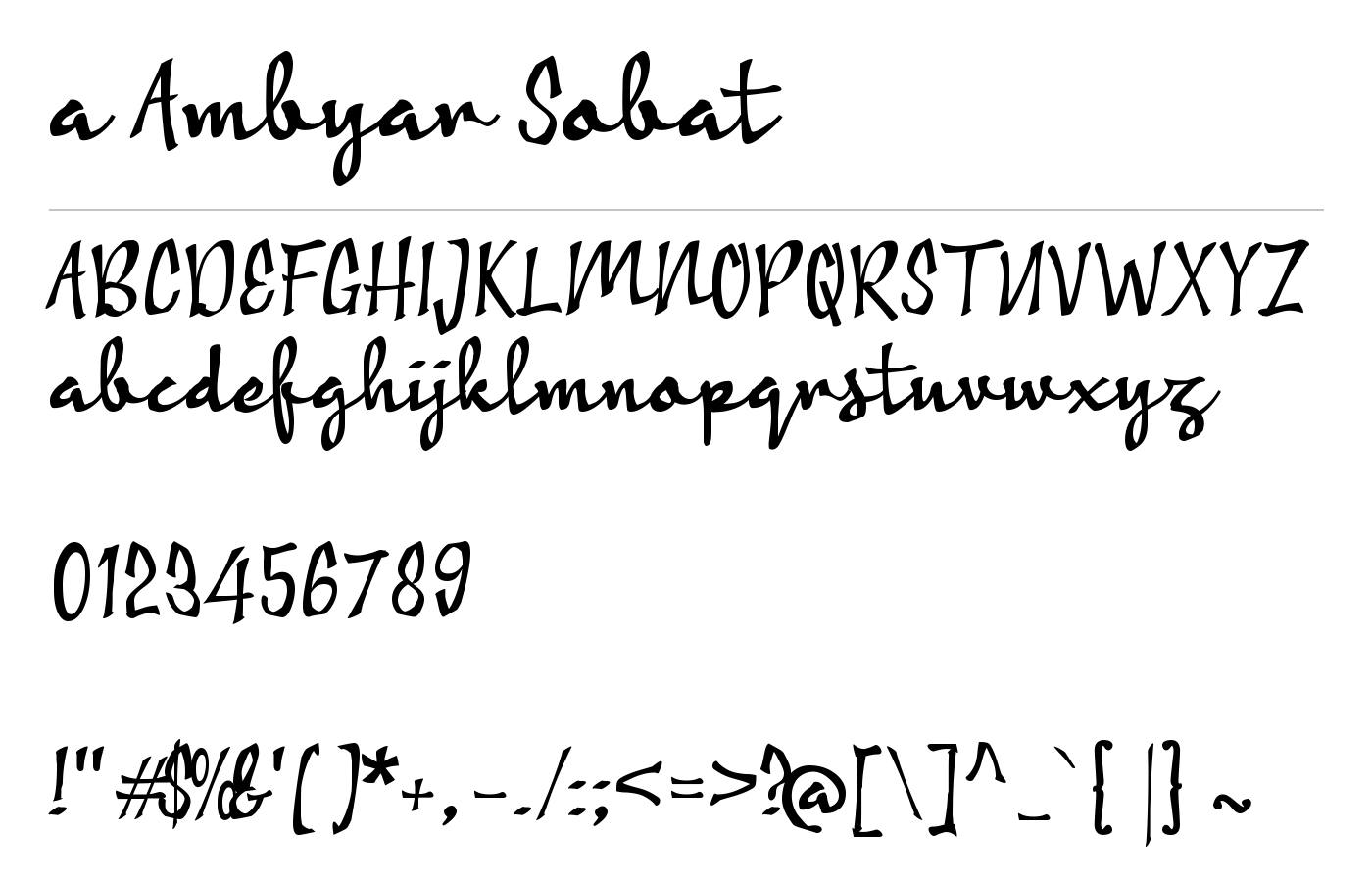
Ambyar Sobat is a lively handwritten script font with a casual, brush-like feel that brings warmth and personality to any design. Its irregular strokes and playful letterforms offer a friendly and informal vibe, making it ideal for personal projects, creative branding, or eye-catching headlines. This font works best where a human touch and expressive style are desired, such as in greeting cards, social media graphics, or artistic packaging.
a Ambyar Sobat Font
About a Ambyar Sobat Font